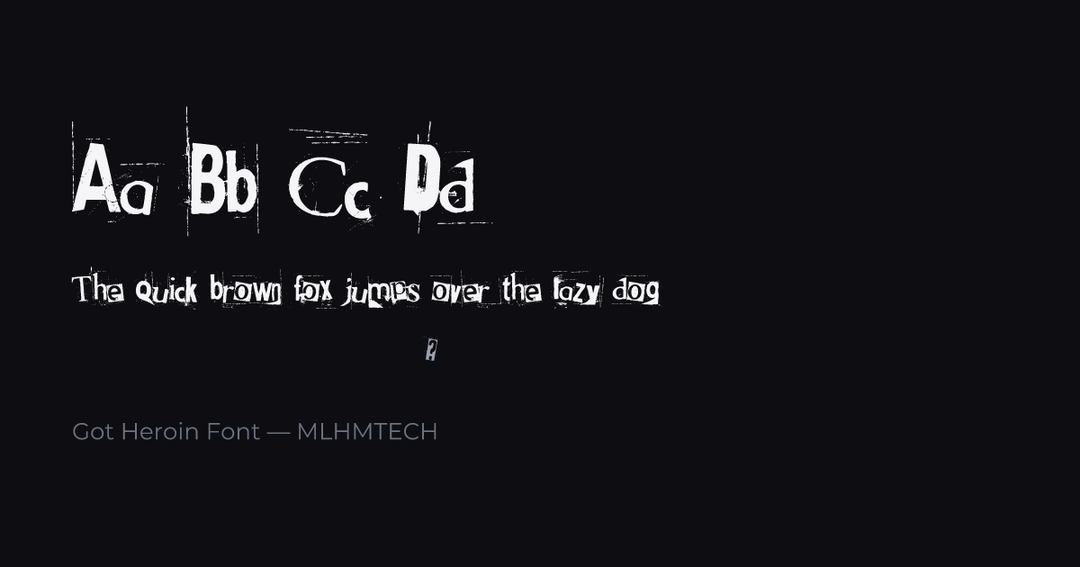
Got Heroin Font
Got Heroin is a bold, grunge display font that adds raw attitude to any design. Perfect for posters, logos, and streetwear.
Got Heroin is a high-impact display font with a rough, grunge aesthetic. Its thick strokes and distressed edges give it a raw, urban feel, ideal for projects that need to stand out.
This font works best for headlines, posters, logos, and apparel graphics. Pair it with simple backgrounds to let its character shine.